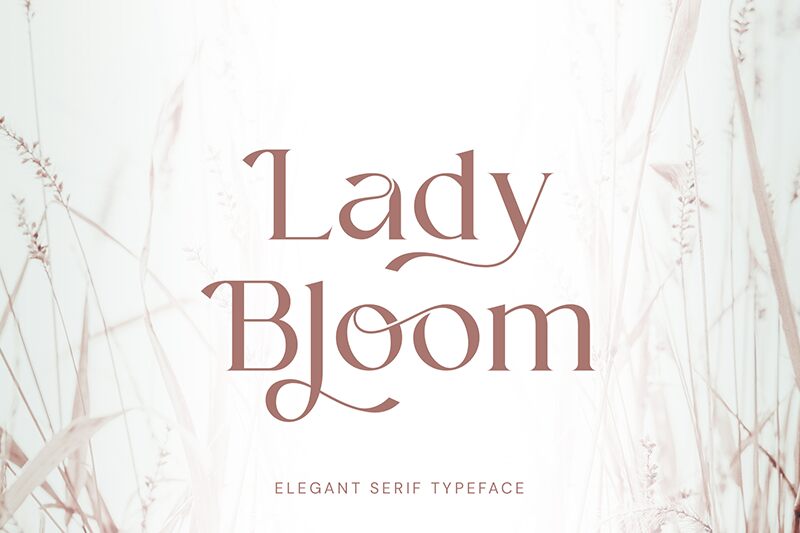
Lady Bloom
Lady Bloom font is a free serif font designed by Ahmad Riqi. Elegant, refined, and classic, Lady Bloom is a serif font defined with sophistication and class. The timeless design of this ornamented font can only add beauty to your branding designs which will still keep it functional and visually pleasing.
This multipurpose font suits logo designs, event tickets, business cards and stationery branding design in general. You can add it to magazines, newspapers titles or write brochure headlines with it. Use it online for website headers as well as artsy Instagram posts for all those who love reading captivating posts!